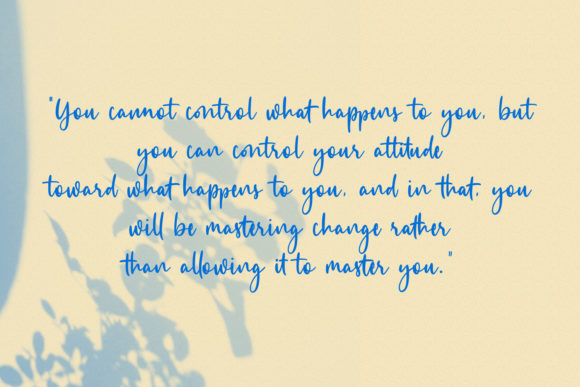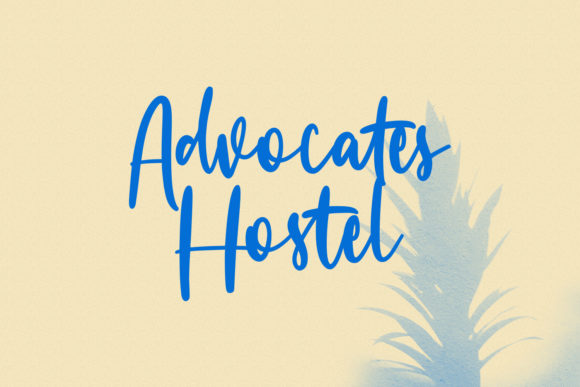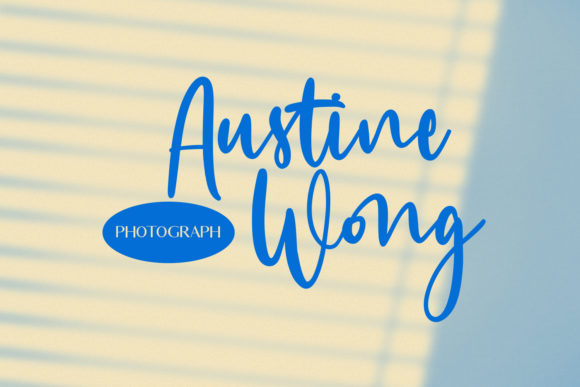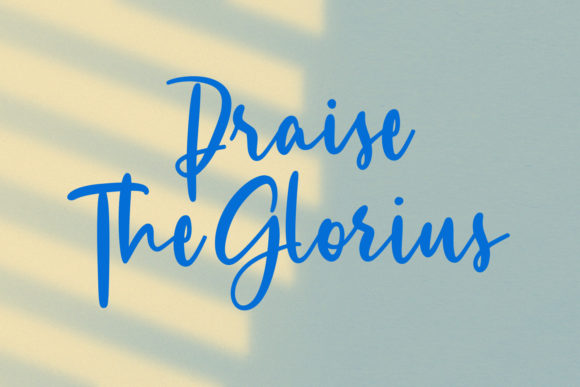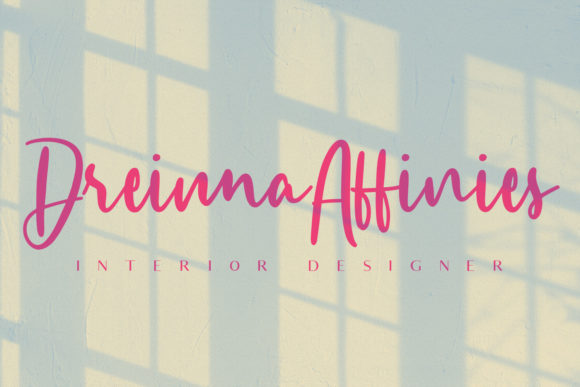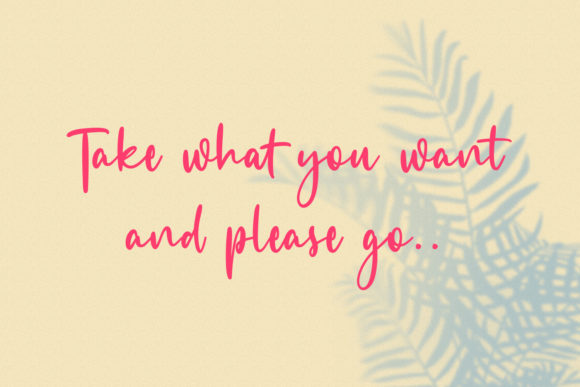
Introducing Bagfullest Font: The Playful Script Font That Brings Joy to Your Designs
Are you tired of using the same old fonts in your designs? Do you want to add a touch of whimsy and playfulness to your creative projects? Look no further than Bagfullest Font, a lovely script font that is sure to bring a smile to your face. With its charming, dancing characters, Bagfullest Font is the perfect addition to any design that needs a bit of personality.
What is Bagfullest Font?
Bagfullest Font is a script font that features beautiful, handwritten characters that seem to dance along the baseline. The font is designed to be highly legible, making it perfect for use in a variety of creative projects, from invitations and greeting cards to blog posts and social media graphics.
One of the things that sets Bagfullest Font apart from other script fonts is its playful, charming nature. The characters in the font are designed to be fun and engaging, with a sense of movement and energy that is hard to find in more traditional fonts.
Features of Bagfullest Font
So, what makes Bagfullest Font so special? Here are just a few of the features that make this font a must-have for designers and crafters:
- Charming, playful characters: The characters in Bagfullest Font are designed to be fun and engaging, with a sense of movement and energy that is hard to find in more traditional fonts.
- Dancing baseline: The characters in the font seem to dance along the baseline, adding a sense of whimsy and playfulness to your designs.
- Highly legible: Despite its playful nature, Bagfullest Font is highly legible, making it perfect for use in a variety of creative projects.
- Versatile: Bagfullest Font can be used in a wide range of creative projects, from invitations and greeting cards to blog posts and social media graphics.
How to Use Bagfullest Font
So, how can you use Bagfullest Font in your designs? Here are a few ideas to get you started:
- Invitations and greeting cards: Bagfullest Font is perfect for use in invitations and greeting cards, adding a touch of whimsy and playfulness to your designs.
- Blog posts and social media graphics: Use Bagfullest Font to add a bit of personality to your blog posts and social media graphics.
- Crafting projects: Bagfullest Font is a great addition to any crafting project, from scrapbooking to DIY signs.
Tips for Using Bagfullest Font
Here are a few tips for using Bagfullest Font in your designs:
- Use it sparingly: While Bagfullest Font is a beautiful font, it can be overwhelming if used too much. Use it sparingly to add a touch of whimsy and playfulness to your designs.
- Pair it with a simple font: Pair Bagfullest Font with a simple font to create a beautiful contrast in your designs.
- Experiment with colors: Don’t be afraid to experiment with different colors when using Bagfullest Font. The font looks great in a variety of colors, from bright and bold to soft and pastel.
Bagfullest Font is a lovely script font that is sure to bring a touch of whimsy and playfulness to your designs. With its charming, dancing characters and highly legible design, Bagfullest Font is the perfect addition to any creative project. Whether you’re a designer, crafter, or simply someone who loves to create, Bagfullest Font is a must-have font that is sure to inspire your creativity.